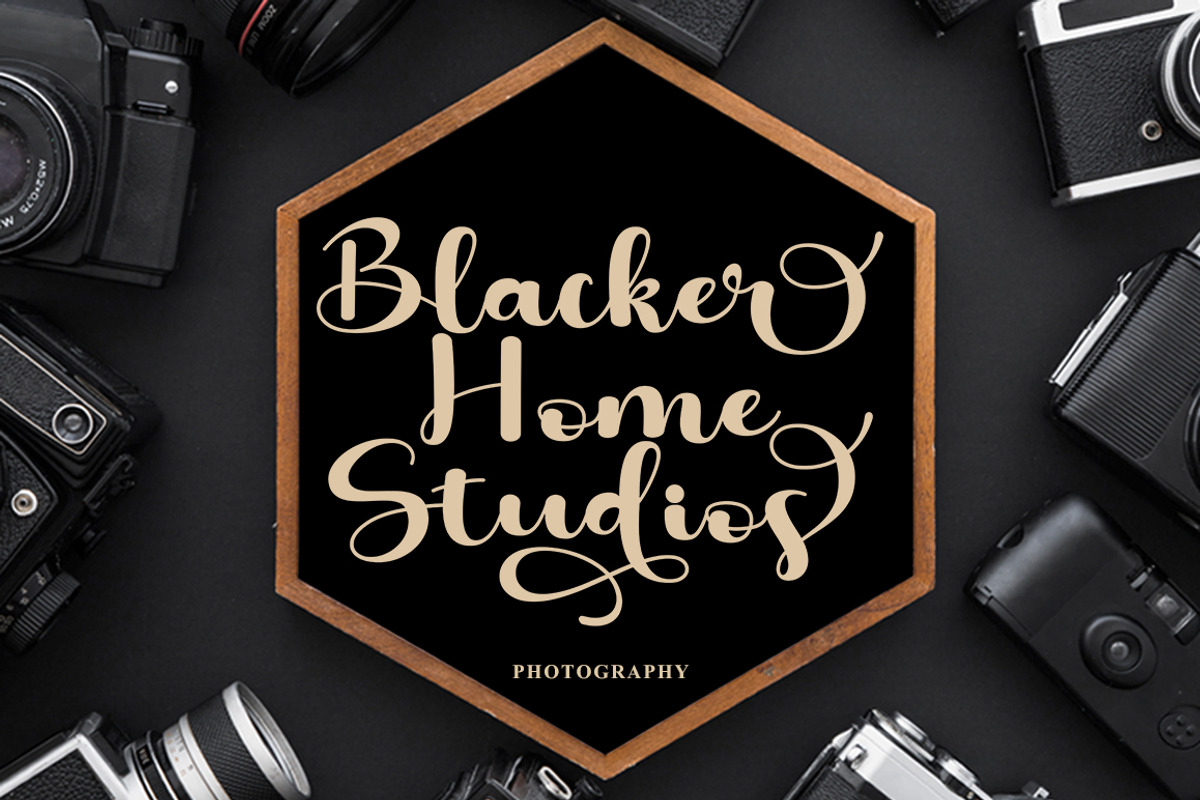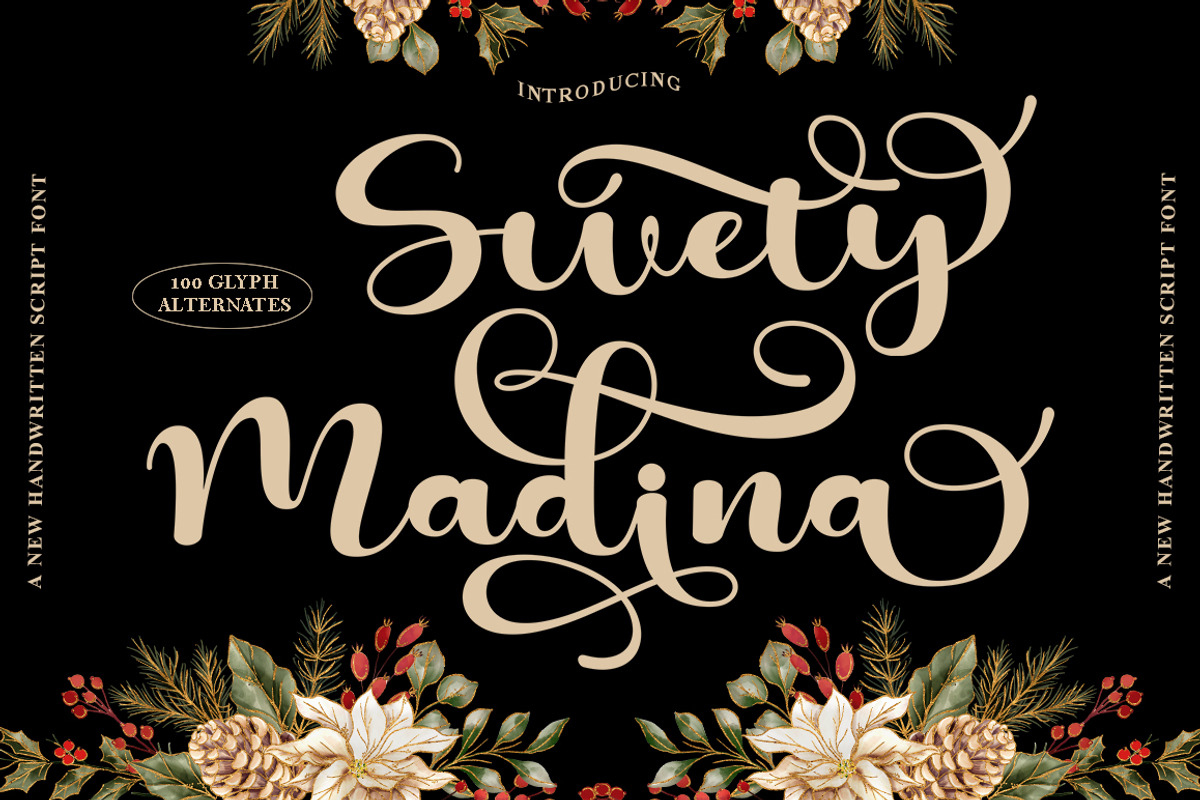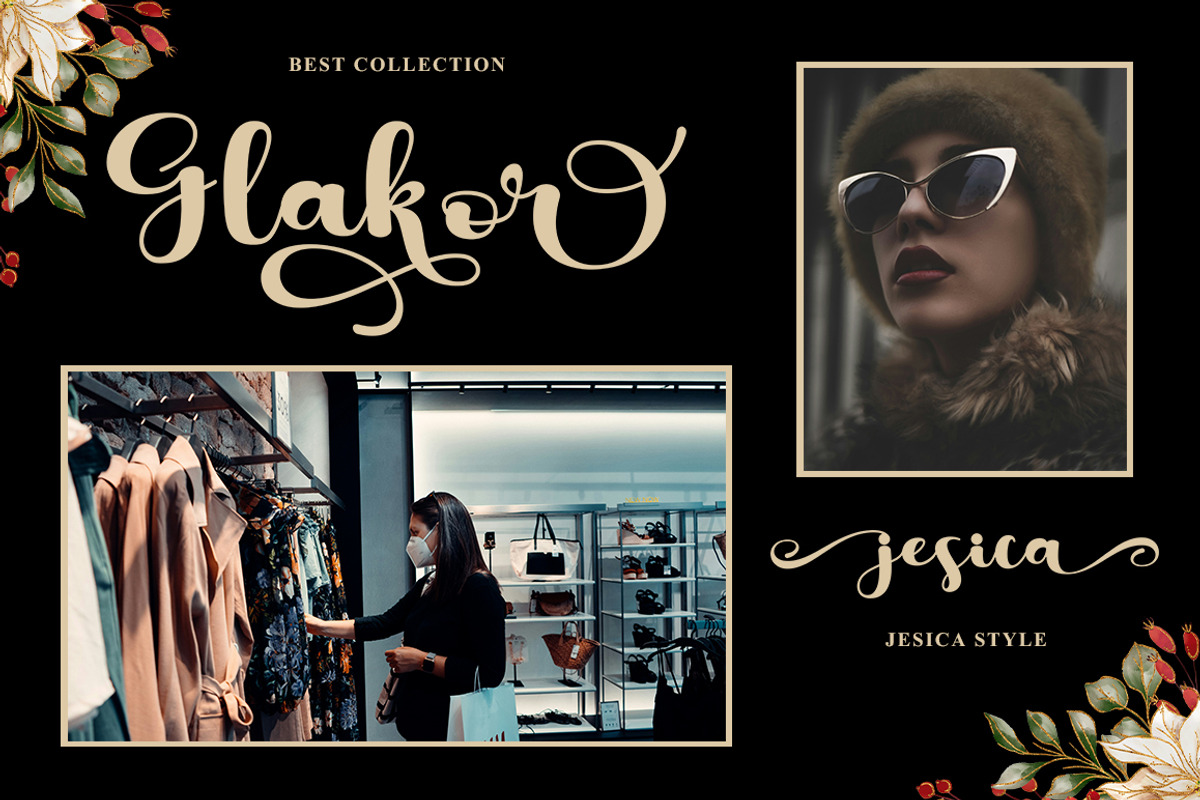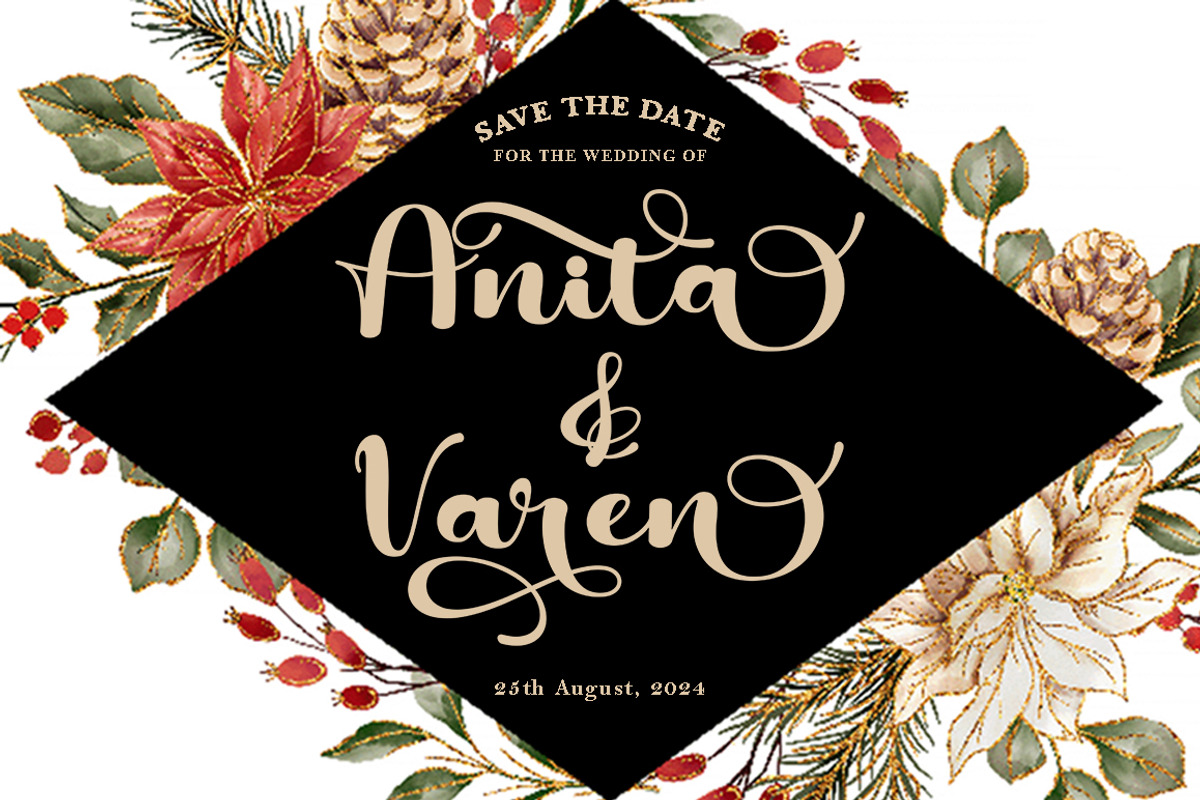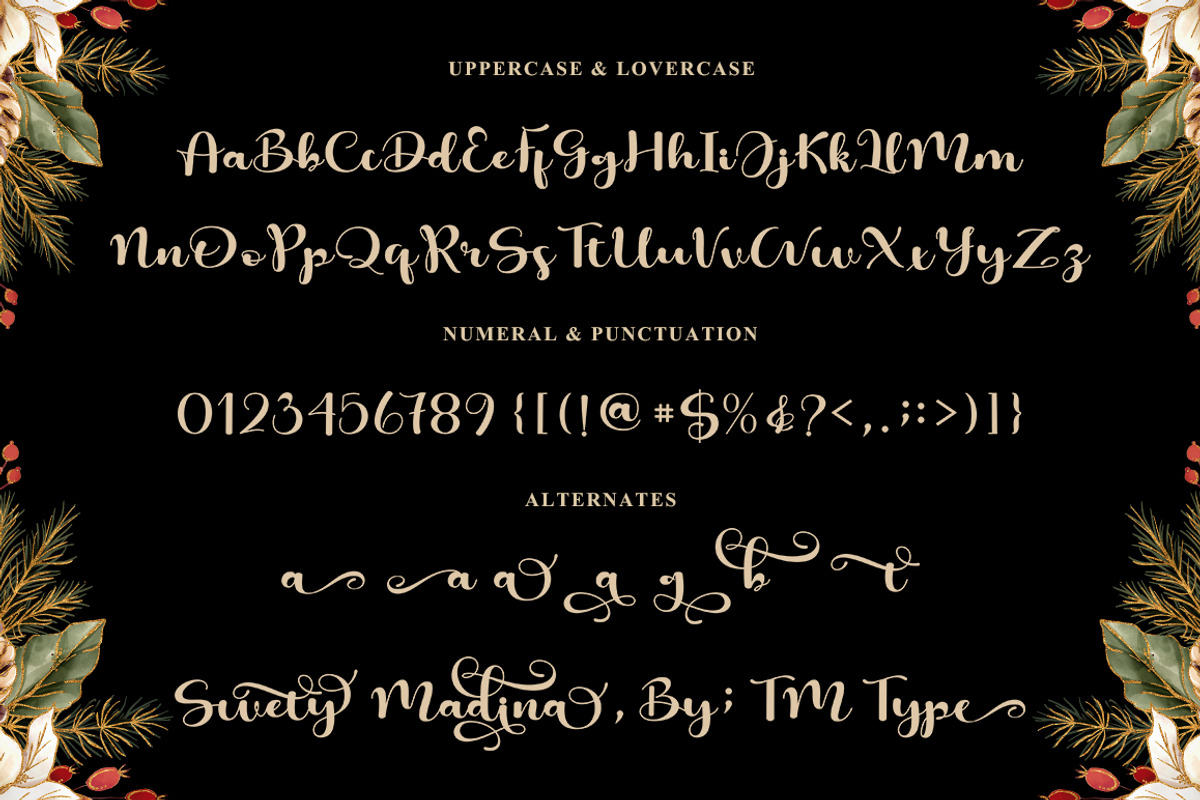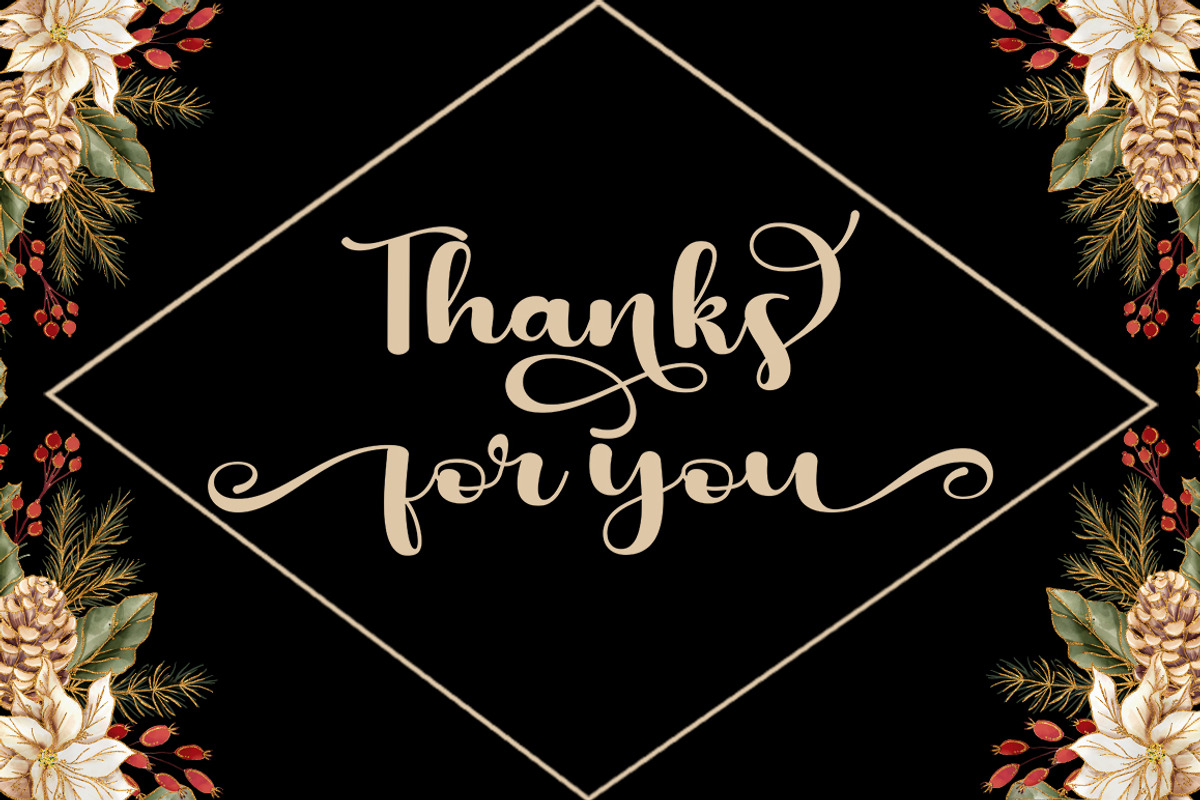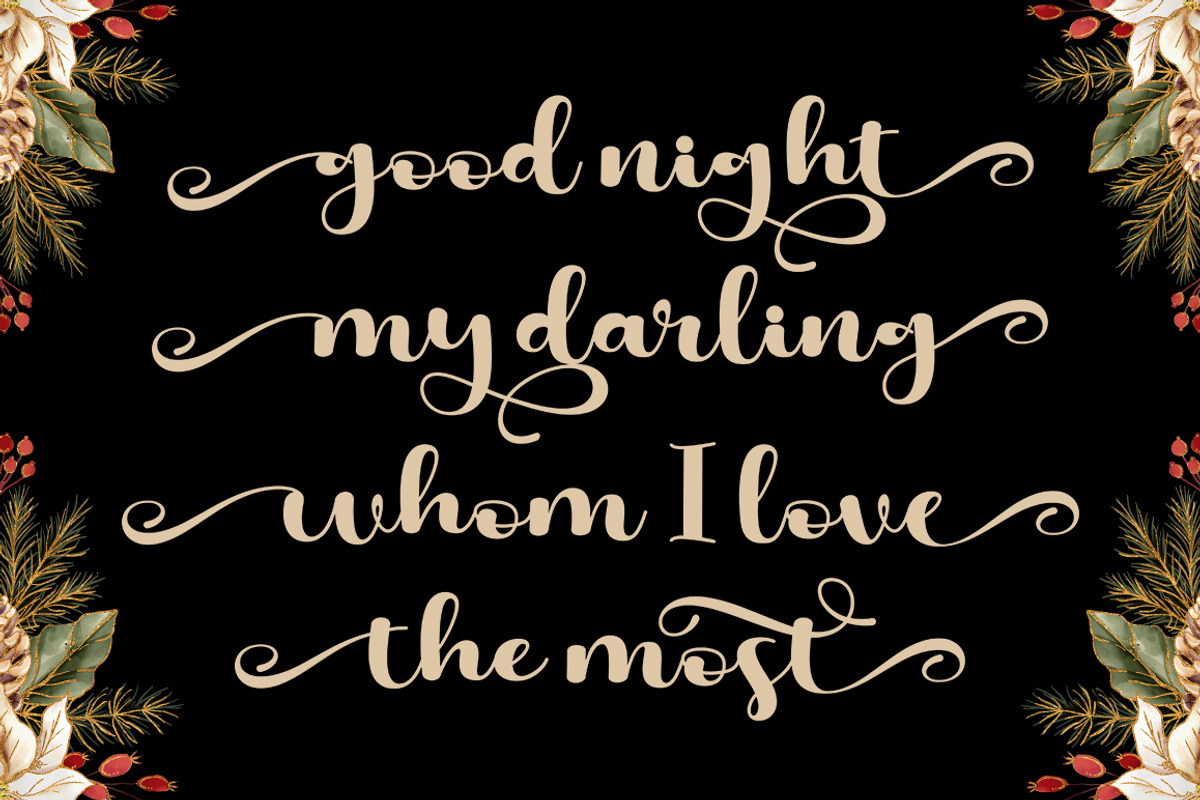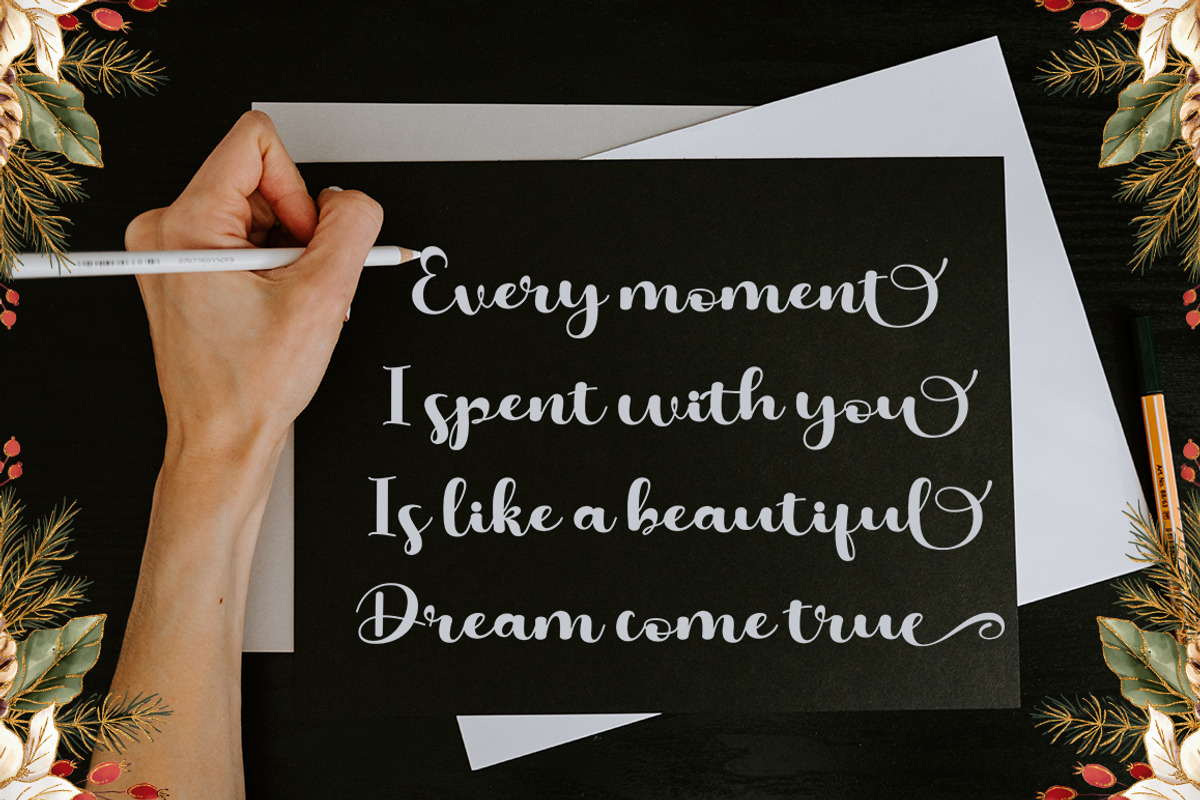
Swety Madina
Swety Madina is a very cute, elegant and unique handwritten font. Expertly designed to become a true favorite, this font has the potential to take your creative ideas to the highest level!
Swety Madina is attractive because it is sleek, clean, feminine, sensual, glamorous, simple and highly readable, thanks to its many luxurious letter joints. I also offer a number of viable alternative styles for all letters. Classic style is very suitable to be applied in various formal forms such as invitations, labels, restaurant menus, logos, fashion, make up, stationery, novels, magazines, books, greeting cards/weddings, packaging, labels or all kinds of advertisements. for your purposes. . . . . . .